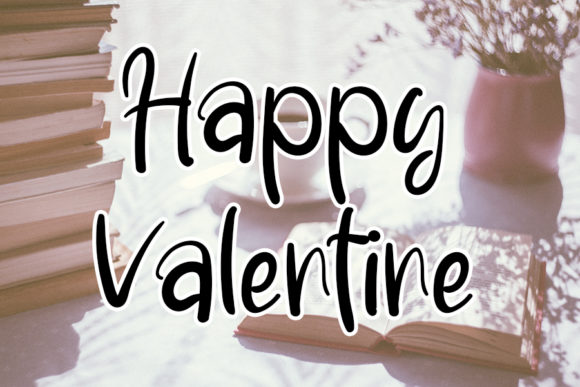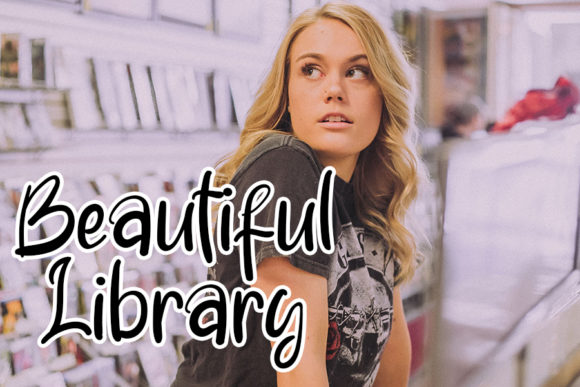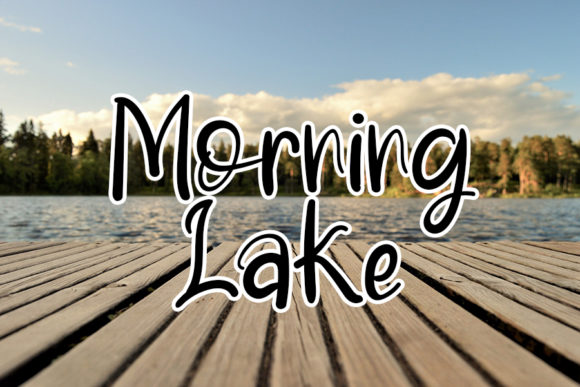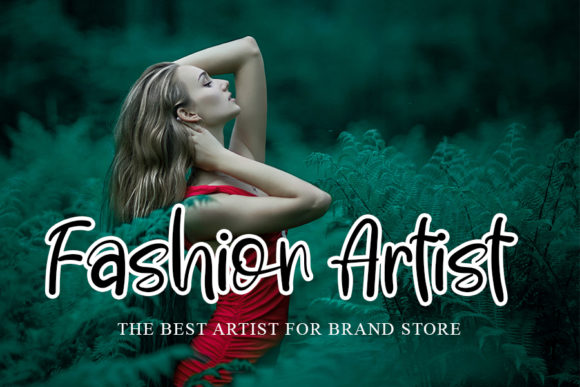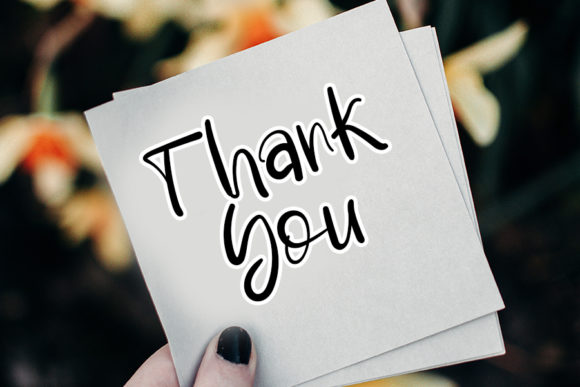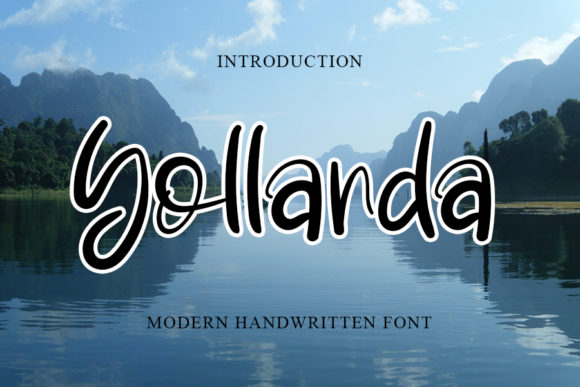
Yollanda Font
About Yollanda Font
Yollanda is a great handwritten font. It maintains its classy calligraphic influences while feeling contemporary and fresh. This versatility will appeal to a wide range of crafty ideas, from letterheads and titles, to stationery.